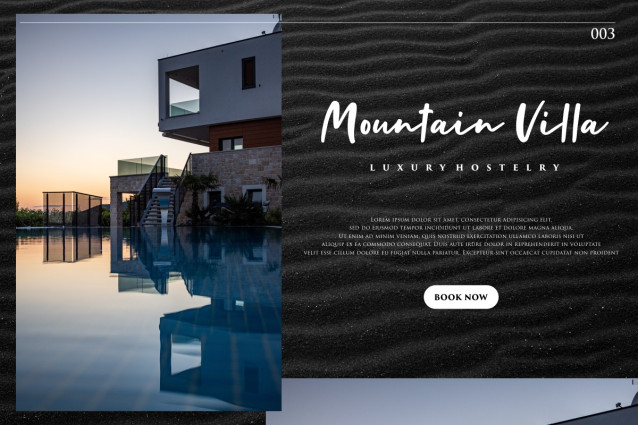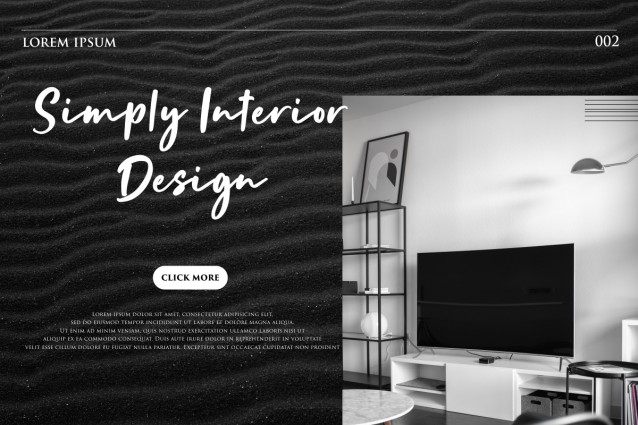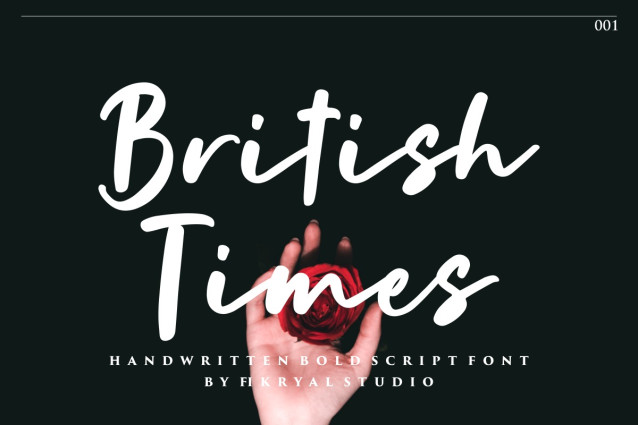
British Times Font
British Times Font is an elegant bold script font perfect for crafting, branding, invitation, stationery, wedding designs, social media posts, advertisements, product packaging, product designs, label, photography, watermark, special events, or anything.